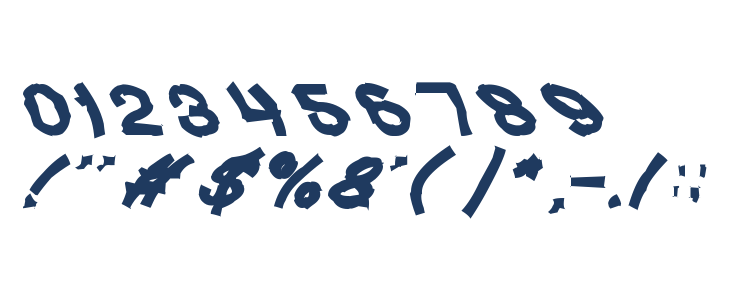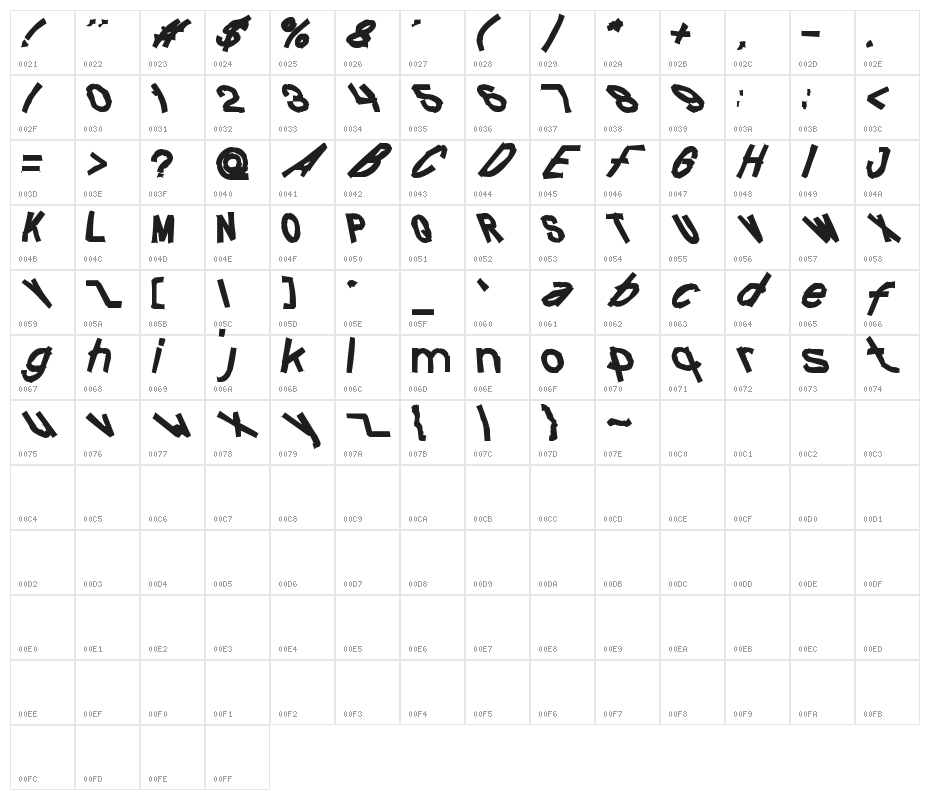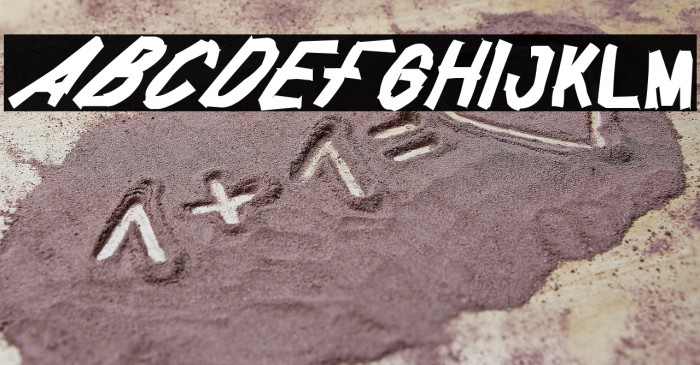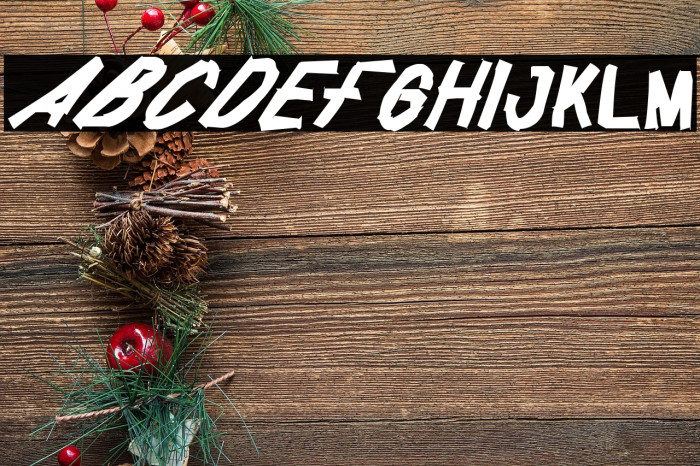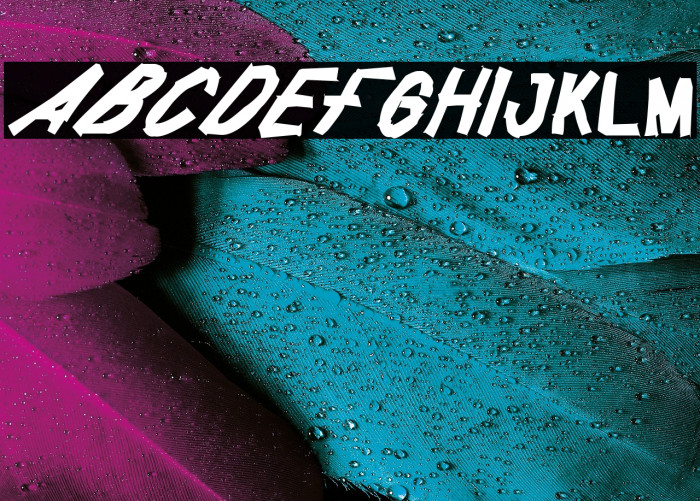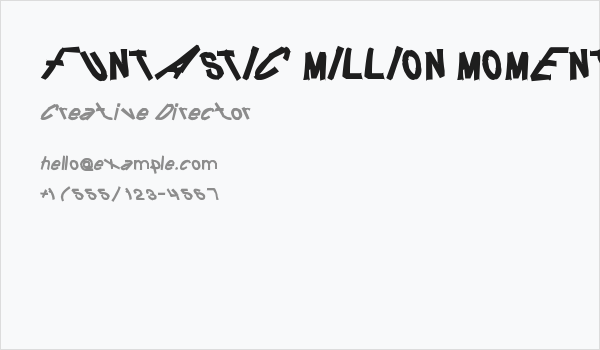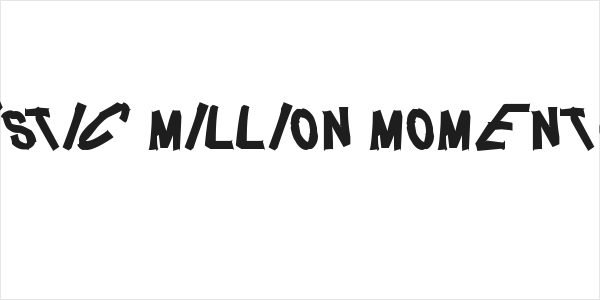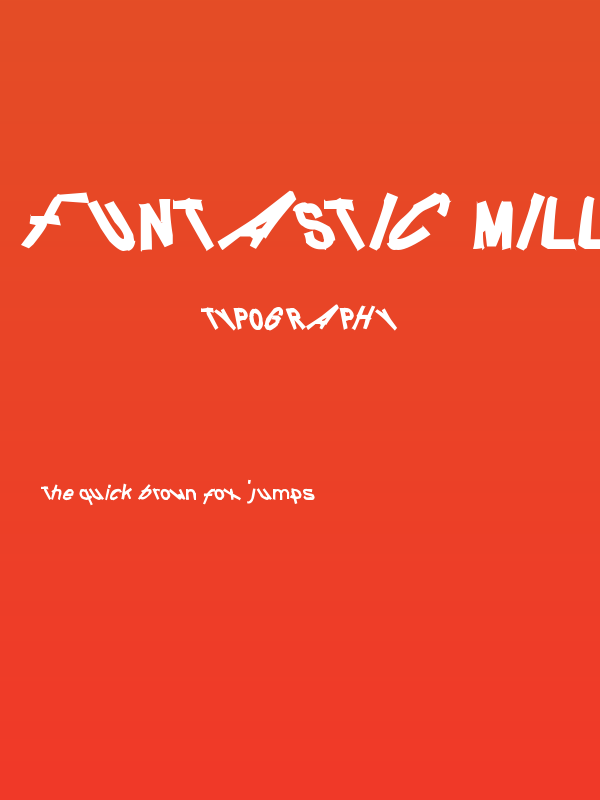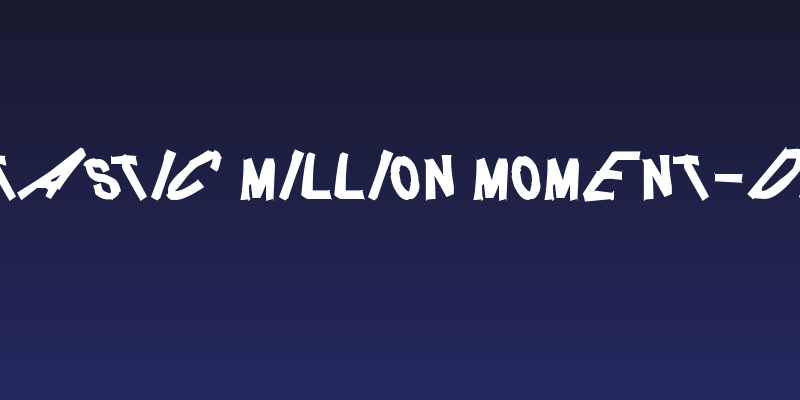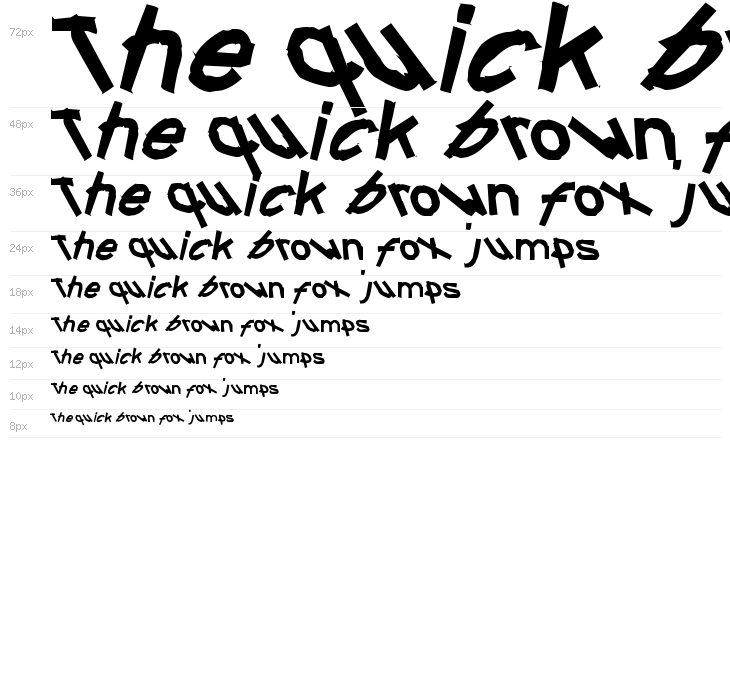
FUNTASTIC MILLION MOMENT-DISTOR Font
FUNTASTIC MILLION MOMENT-DISTOR Description
This font features a bold and dynamic style with a playful, distorted appearance. The characters are irregularly shaped, giving a sense of movement and energy. The uppercase and lowercase letters maintain a consistent theme of distortion, with varying angles and thicknesses that create a unique visual rhythm. The numbers and special characters follow the same design principles, ensuring a cohesive look across all elements. This font is ideal for projects that require a fun and unconventional aesthetic, making it perfect for creative and artistic applications.
| Proposed Projects | Ideal for posters, album covers, event flyers, and creative branding projects. |